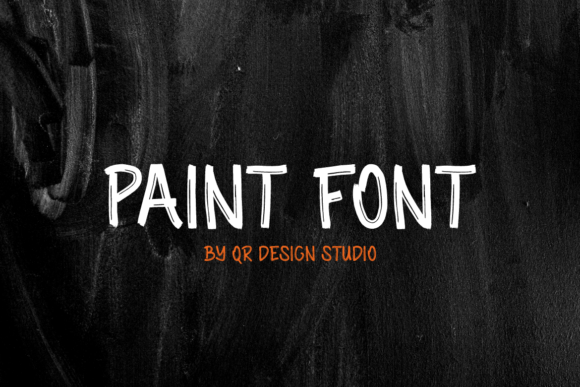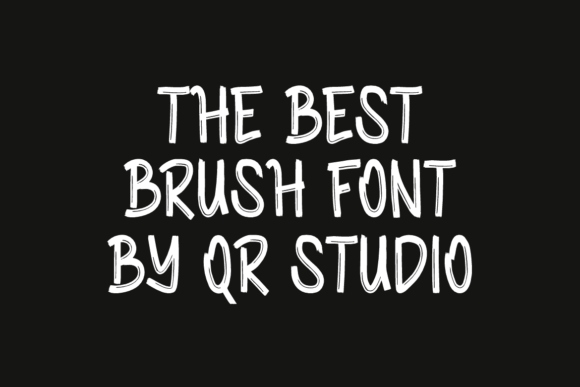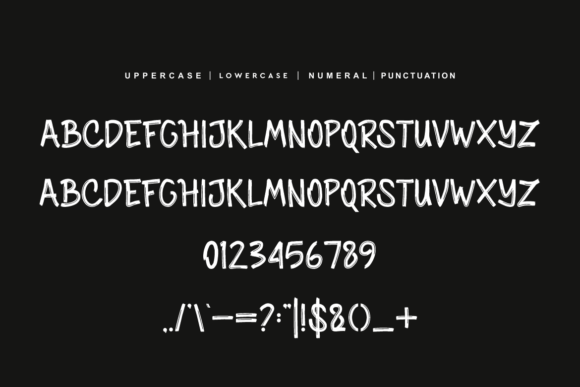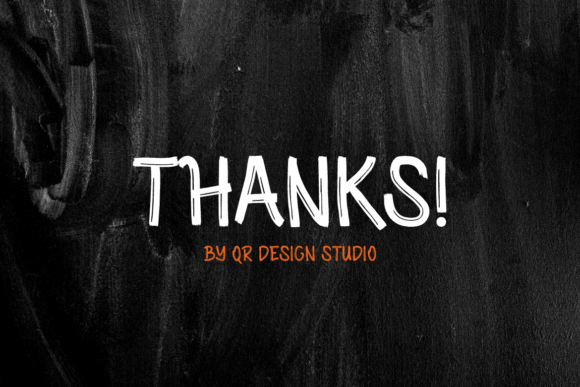
Introduction to Marker Brushen Font
Remember that moment when you’re brainstorming ideas for a creative project, and suddenly, a spark of inspiration hits you? You envision the perfect font to bring your design to life. For designers, finding the right font can make all the difference in elevating their work to the next level. That’s where the Marker Brushen Font comes in – a sweet and friendly handwritten font that’s sure to capture the hearts of your audience.
With its natural and unique style, the Marker Brushen Font is an incredibly versatile design resource. Whether you’re working on a project that requires a high-quality, free download or simply need a font to give your design a personal touch, this font is sure to deliver. Plus, its transparent background makes it easy to layer and customize, giving you endless possibilities to experiment with.
Key Features of Marker Brushen Font
- Unique, hand-drawn design with a high level of detail, perfect for creative projects requiring a personal touch.
- High-resolution design, suitable for use in both digital and print applications, with a resolution of 300 DPI or higher.
- Transparent background option, allowing designers to easily customize the font to fit their specific design needs.
- Perfect for designers and artists looking for a high-quality, unique font to elevate their creative project, whether it’s a logo, poster, or other design element.
Honest Review: Marker Brushen Font
- High-quality strokes that give a real brush-painted feel
- Easy to customize and manipulate for various design applications
- Perfect for creating unique titles and headings in my creative project designs
However, there are a few limitations I’ve encountered:
- Not ideal for small text sizes, as the strokes can appear blurry
- Doesn’t support transparent background, which can limit its use in some design scenarios
Overall, I’m impressed with the Marker Brushen Font. Its high-quality design and versatility make it a valuable resource for any designer working on creative projects. While it may not be perfect, I’d highly recommend it for anyone looking for a unique and eye-catching font.
Use the Marker Brushen Font to create eye-catching headings and titles, and pair it with other design elements to create a unique and creative look. You can also use it to add a personal touch to your designs.
The Marker Brushen Font is commonly used in creative projects such as brochures, flyers, and social media graphics. It is also used in presentations and documents to add a creative touch.